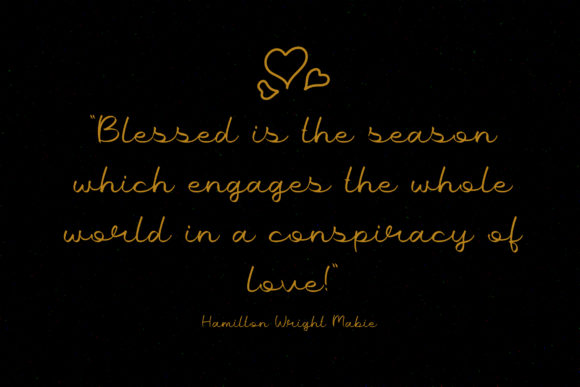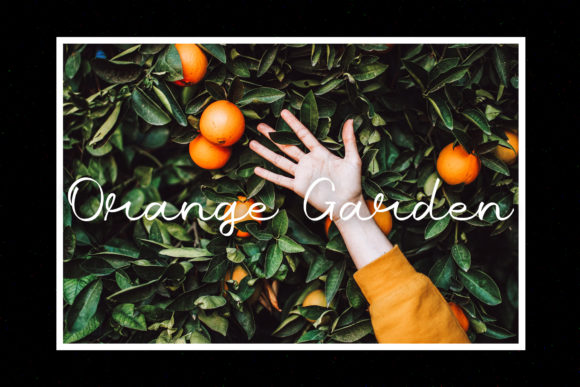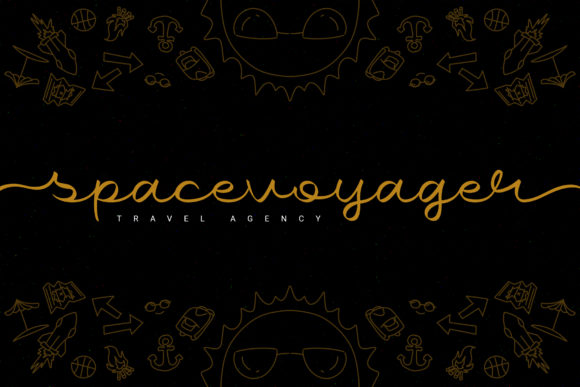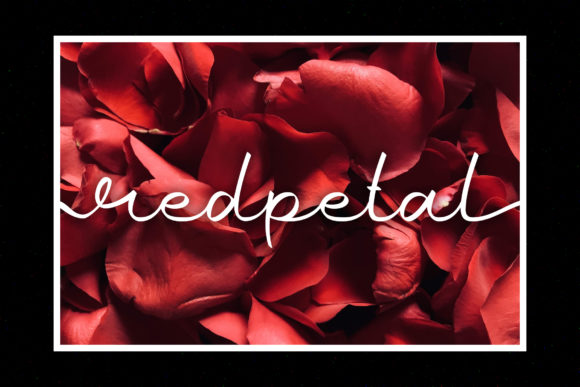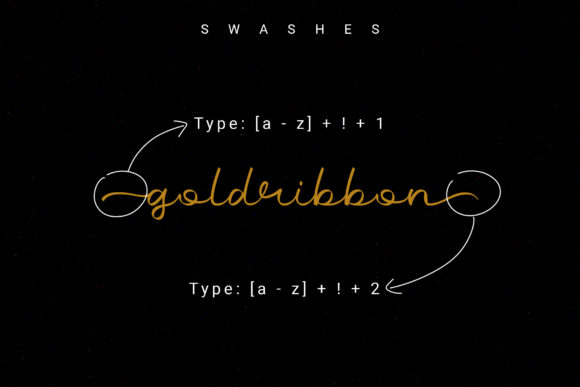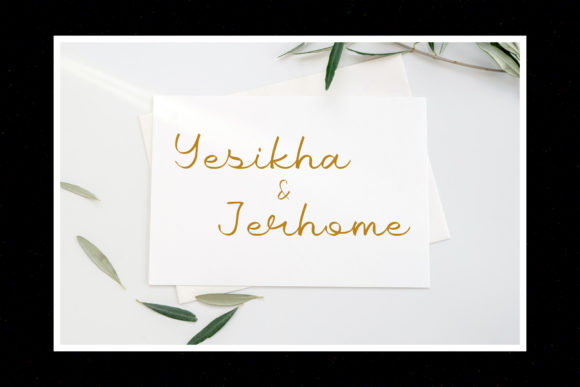
Unleash the Elegance of Your Creations with Gold Ribbon Font
Have you ever been in a moment of creative bliss, where the words just flow and your imagination runs wild? That’s exactly what happens when you work with the perfect font. For designers, finding the right font can make all the difference between a good design and a great one. That’s why we’re excited to introduce you to the lovely Gold Ribbon Font, a script font that’s full of alternates and defined by an elegant touch.
The Gold Ribbon Font is ideal for any craft, wedding card, greeting card, or letter where you want to add a touch of sophistication and charm. Its beautiful design makes it a valuable asset for designers who want to create unique and memorable pieces. With the Gold Ribbon Font, you can take your designs to the next level and make a lasting impression on your audience.
Key Features of Gold Ribbon Font
- Font Style: Script, Calligraphy
- Unique Characteristics: Elegant, cursive, and ornate design elements
- Perfect for use in various design contexts, including invitations, posters, and signage
- Color: Available in gold and silver color options
- Can be used to create a luxurious and sophisticated design aesthetic
Designer Review: Gold Ribbon Font
Overall, the Gold Ribbon Font is a visually appealing addition to any design project. It’s clear that the font designers aimed to create a bold, luxurious feel that evokes the prestige of a gold ribbon.
- ✨ The font’s most striking feature is its high-end aesthetic. The rounded edges and subtle flair give it a touch of elegance that’s hard to ignore.
- ✨ The font is highly customizable, with a range of weights and styles available to suit different design needs.
- ✨ The Gold Ribbon Font is well-suited for applications that require a sense of sophistication and refinement, such as luxury branding, high-end marketing materials, and special occasion invitations.
- ⚠️ The font may be too ornate for some design projects, potentially overpowering the message or overwhelming the user.
- ⚠️ The font’s luxury feel may not be suitable for every brand or audience, potentially limiting its versatility.
- ⚠️ The font may require additional styling or pairing to achieve the desired effect, which can add extra design complexity.
In conclusion, the Gold Ribbon Font is a solid choice for designers seeking a luxurious, high-end aesthetic. While it may have some limitations, its versatility and customization options make it a valuable addition to any design toolkit.
The Gold Ribbon Font is ideal for creating luxurious and elegant designs. Use it to add a touch of sophistication to your branding, packaging, and marketing materials.
Some common use cases include:
1. Creating custom logos and branding elements.
2. Designing luxury packaging and product labels.
3. Creating invitations and event materials.